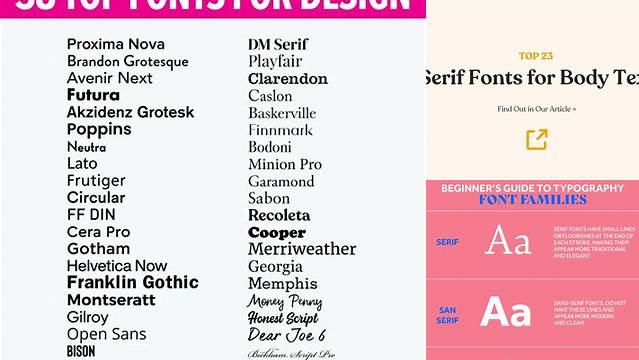
Best Body Text Fonts For Readability
Choosing the best fonts for body text can feel like navigating a maze, right? But hey, don't worry, we're gonna break it down, making it super easy to understand. We'll dive into everything from font families to specific font choices, ensuring your content is not only informative but also a breeze to read. Finding the right font can make or break how your audience perceives your message. So, let's get started and make sure your body text is as welcoming as possible!
1. Understanding Font Families for Body Text
Alright, guys, let's talk about the foundation of great typography: font families. You've got your main players – serif, sans-serif, monospace, and a few others. Each brings a different vibe to the table, and understanding their nuances is key when picking the best fonts for body text. Serifs, those little decorative strokes at the end of letters (think Times New Roman or Georgia), often give a classic, traditional feel. They can guide the eye across the lines, making them a solid choice for lengthy articles. But, their classic look might not always fit a modern, edgy brand. Sans-serif fonts, which ditch the serifs (like Arial or Helvetica), bring a clean, modern feel. They're super readable on screens, making them perfect for websites and apps. Monospace fonts, where each letter takes up the same horizontal space, are great for coding and technical content but might not be the best choice for long-form body text due to their rigid structure. Then there are the script fonts, which imitate handwriting and are awesome for headlines and titles but aren't as readable in extended body text.
When choosing your font family, consider your target audience and the overall tone of your content. For example, if you're writing for a blog about vintage fashion, a serif font might complement your aesthetic well. On the other hand, if you're creating a tech startup's website, a sans-serif could be the perfect fit. Think about the context in which your text will be read: print, screen, different devices. Also, accessibility is crucial. Ensure your chosen font is easily readable for everyone, including those with visual impairments. Testing different fonts and seeing how they perform across various platforms is a great practice. Experiment with different combinations, mixing sans-serifs for headings with serifs for body text, to see what truly makes your content shine. Remember, the goal is to choose a font family that enhances readability and supports your message, not distracts from it. So, think of it as the first step toward creating a seamless and engaging reading experience for your audience!
2. Serif Fonts: Classic Choices for Body Text
Let's get into the nitty-gritty of serif fonts, those timeless classics for body text. These fonts are loved for their legibility and the way they can add a touch of elegance to your content. The little feet or strokes, those serifs, at the end of each letter aren’t just for show; they actually help the eye flow smoothly across the lines. One of the most popular serif choices for body text is Times New Roman. It's the go-to for a reason – it’s a workhorse, reliable, and easy to read in most settings. Then there's Georgia, another winner, specifically designed for screen readability; its slightly bolder strokes make it fantastic for digital content. Garamond is another fantastic choice, known for its elegance and slightly more refined look. It has been a go-to font for centuries, especially in book publishing. Book Antiqua is a great option for a more classic, almost vintage feel, making it perfect for content aiming to feel established and trustworthy. These fonts are perfect for long reads and can boost readability, particularly in printed materials.
When choosing a serif font, consider the x-height, the height of the lowercase letters. A generous x-height, like in Georgia, can improve readability, particularly for smaller font sizes. Also, think about the weight and style of the font. A slightly heavier weight can increase legibility on screens, while italics might provide a touch of personality. The key is to find a font that looks great and also feels comfortable to read. Test the font at various sizes and in different contexts: on your website, in a document, even on your phone. Observe how the serifs interact with your content’s layout. The best serif fonts will support your text without overshadowing it. They should complement your content, not compete with it. So, dive in, experiment with these fantastic serif fonts, and see which one adds that perfect touch of readability and style to your body text. Finding the right serif can make all the difference, bringing a sense of tradition and sophistication to your message, making your content more inviting and enjoyable to your readers.
3. Sans-Serif Fonts: Modern Reads for Body Text
Alright, let's switch gears and talk about sans-serif fonts, the go-to for modern, clean design, and excellent for body text in digital spaces. Sans-serif fonts ditch those little